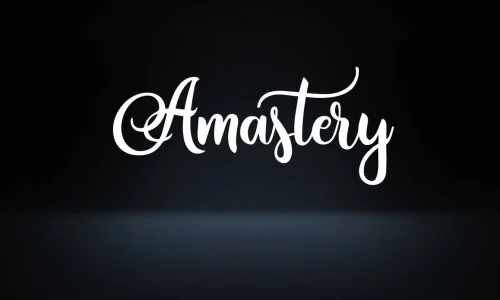
Little Mandy font is from the script typeface family and its publisher is Junik Studio. This font is very stylish and has curly swashes. It is very much unique in style as compared to other fonts. It is the best font for your designing projects for adding uniqueness to your designs. This font is best for calligraphy and logo designing.
It contains letters that are very stylish and swirly. It is the best font for your modern-day designs especially fashion magazines and invitation cards.
This font has such a style that is perfect for giving a casual impression to your designed projects. Nickainely Font is the closest alternative to this font.